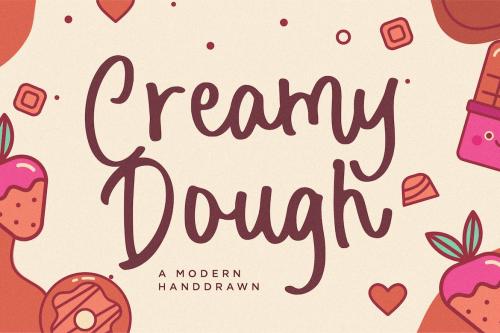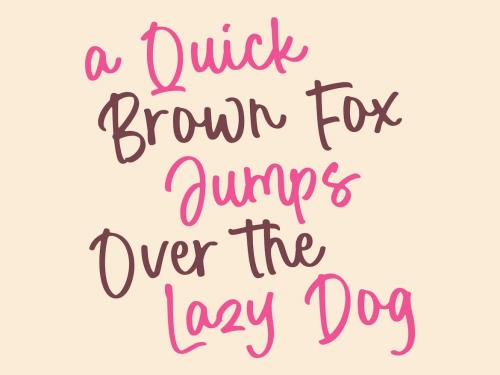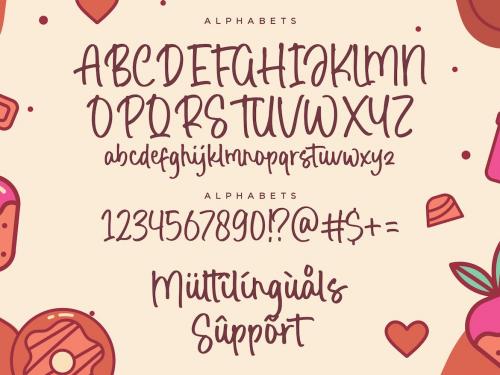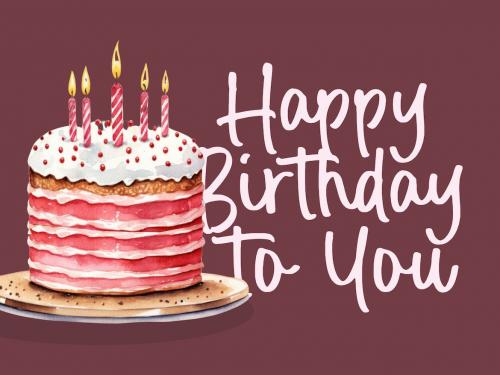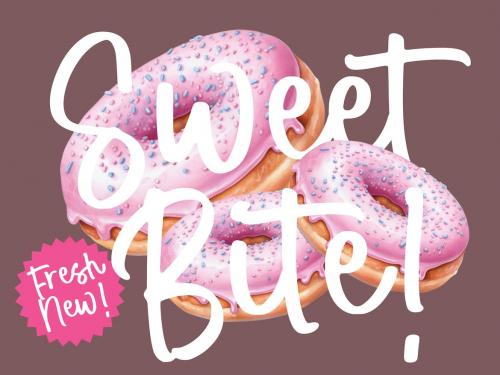
奶油 dough手写字体
Creamy Dough Handwriting Font
Creamy Dough - a Modern Handdrawn that's clean, elegant and perfect for a range of design projects! With its smooth, effortless lines and understated sophistication, this font is the perfect choice for those who want a modern look that's still timeless in its appeal. Crafted with precision and care, this font is incredibly versatile and can be used for a range of design projects, including logos, branding, invitations, packaging, and more. With its simple yet refined aesthetic, it's sure to make a lasting impression on anyone who sees it.
Creamy Dough - a Modern Handdrawn that's clean, elegant and perfect for a range of design projects! With its smooth, effortless lines and understated sophistication, this font is the perfect choice for those who want a modern look that's still timeless in its appeal.
Crafted with precision and care, this font is incredibly versatile and can be used for a range of design projects, including logos, branding, invitations, packaging, and more. With its simple yet refined aesthetic, it's sure to make a lasting impression on anyone who sees it.
- also multilingual support